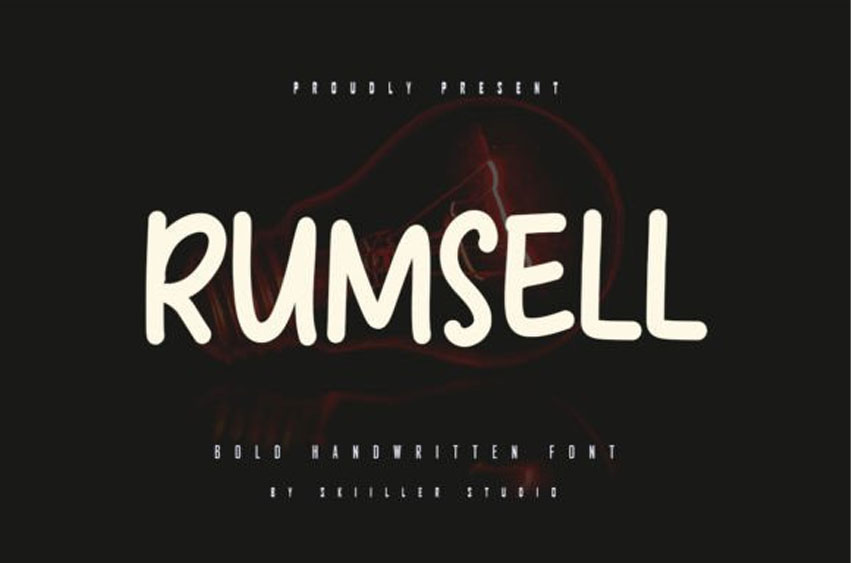
Rumsell Font is a playful handwritten font, crafted to give your headlines and logotype projects a stylish touch.
This font reads as strong, confident, and dynamic and can add tons of urban character to your designs.